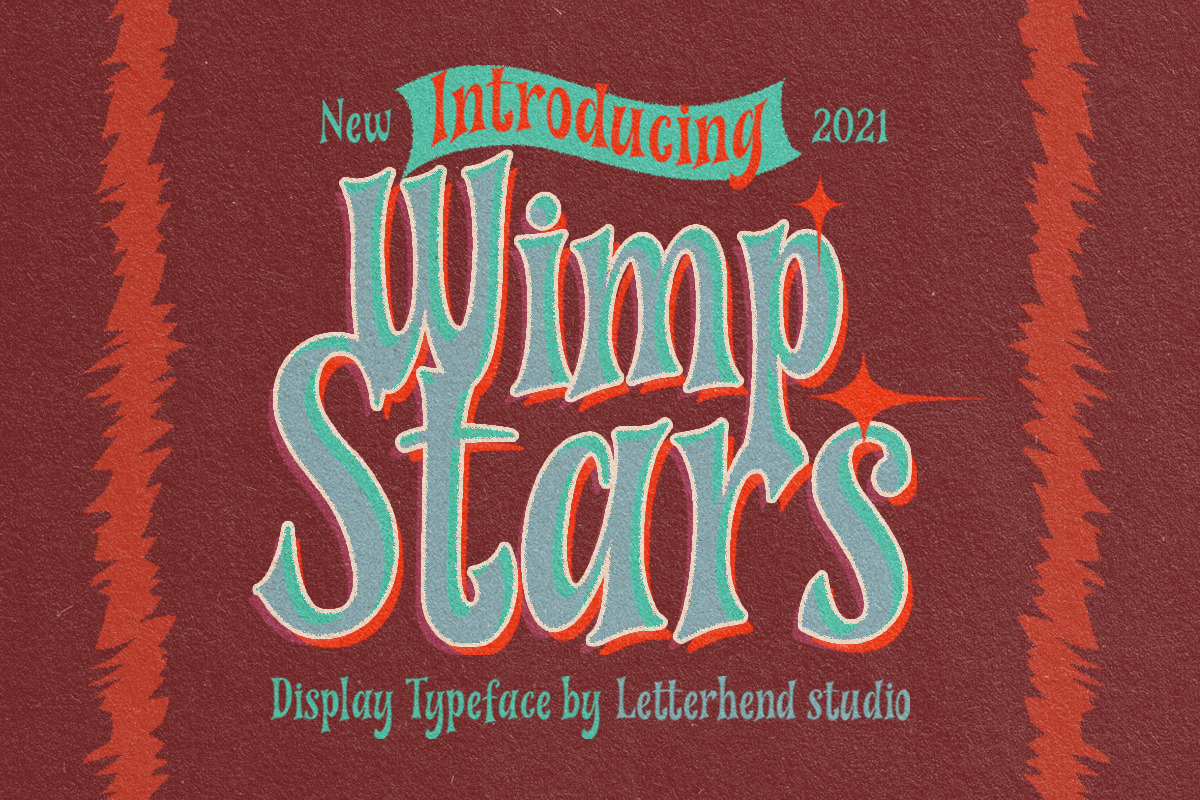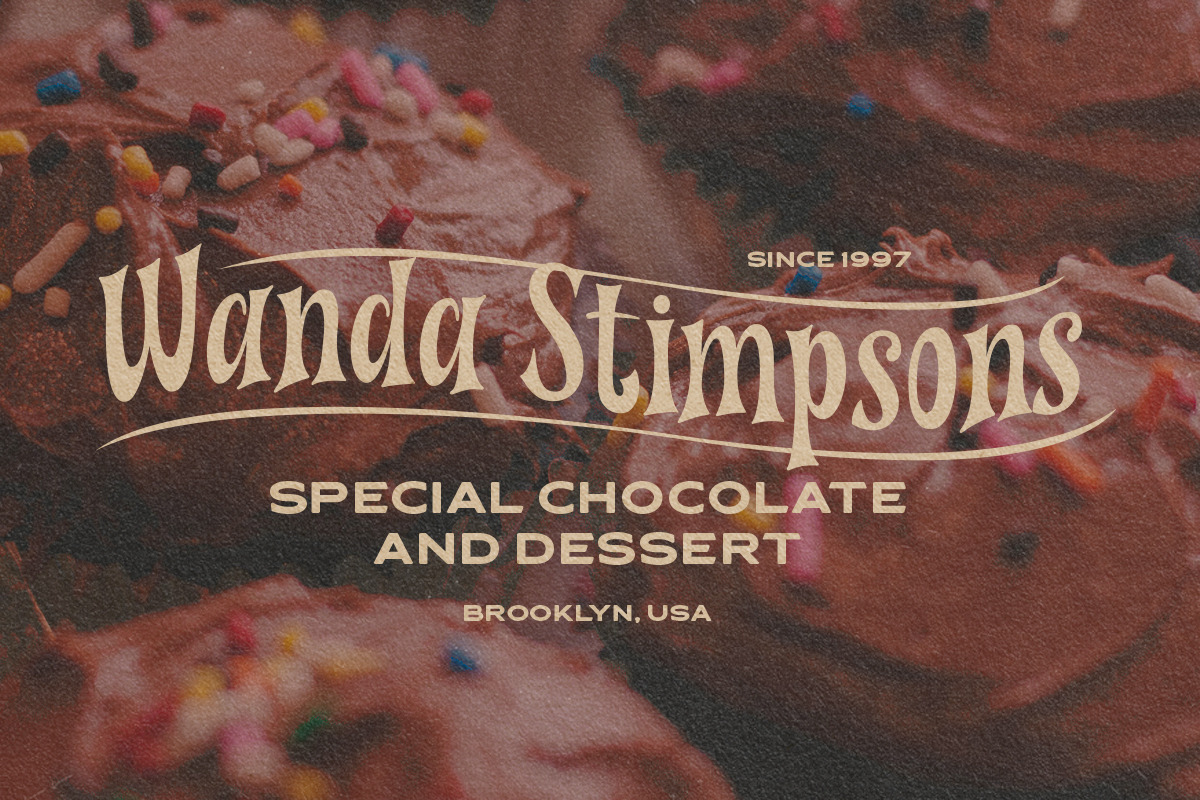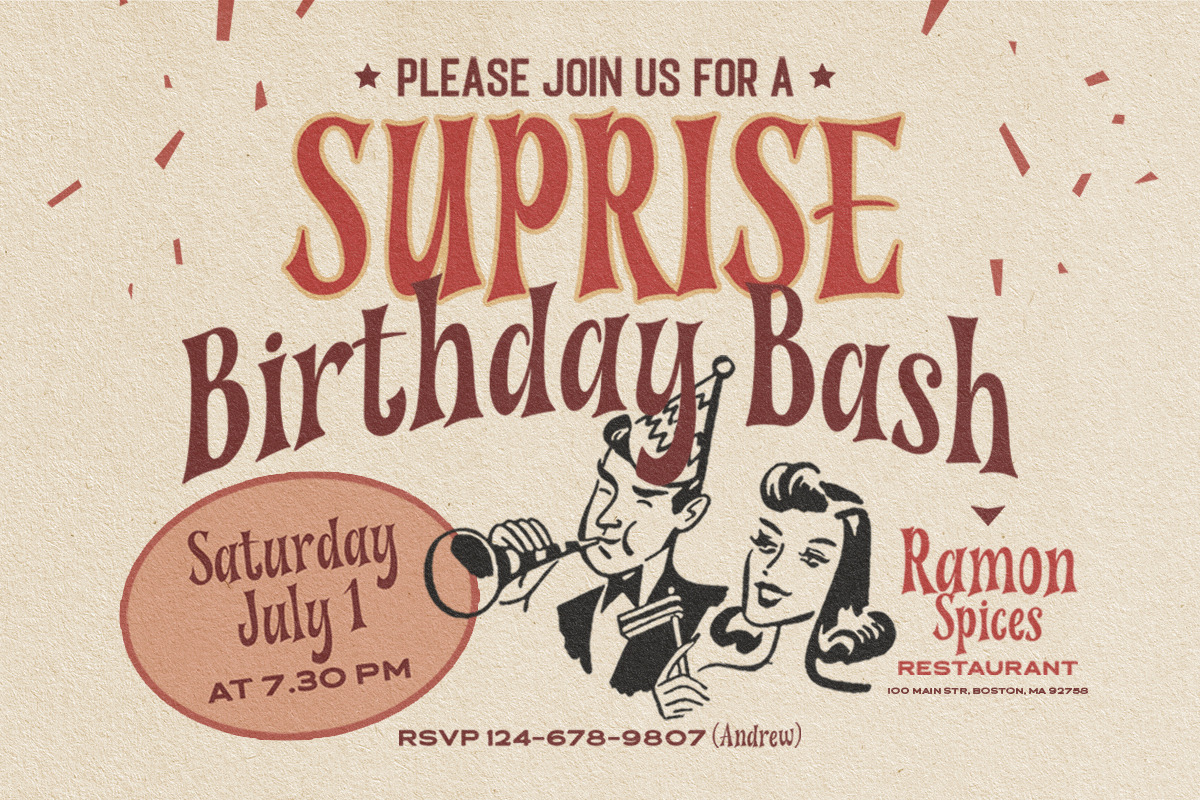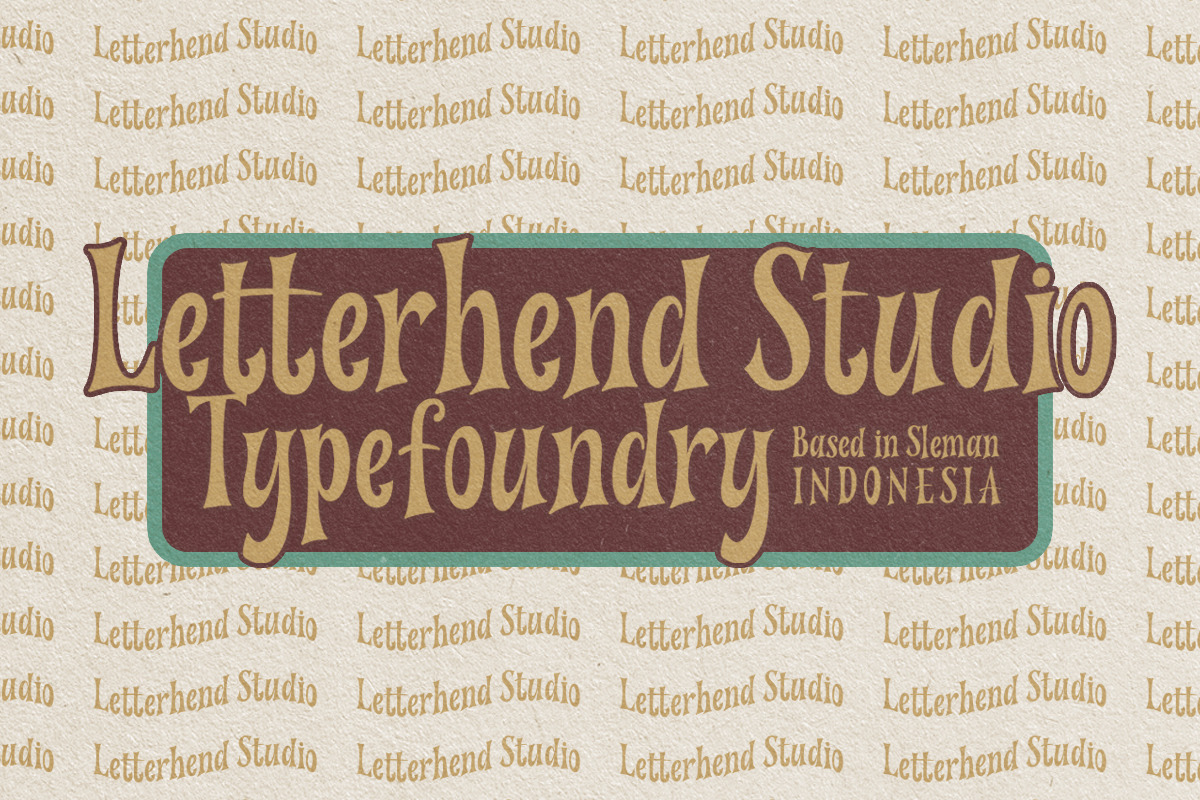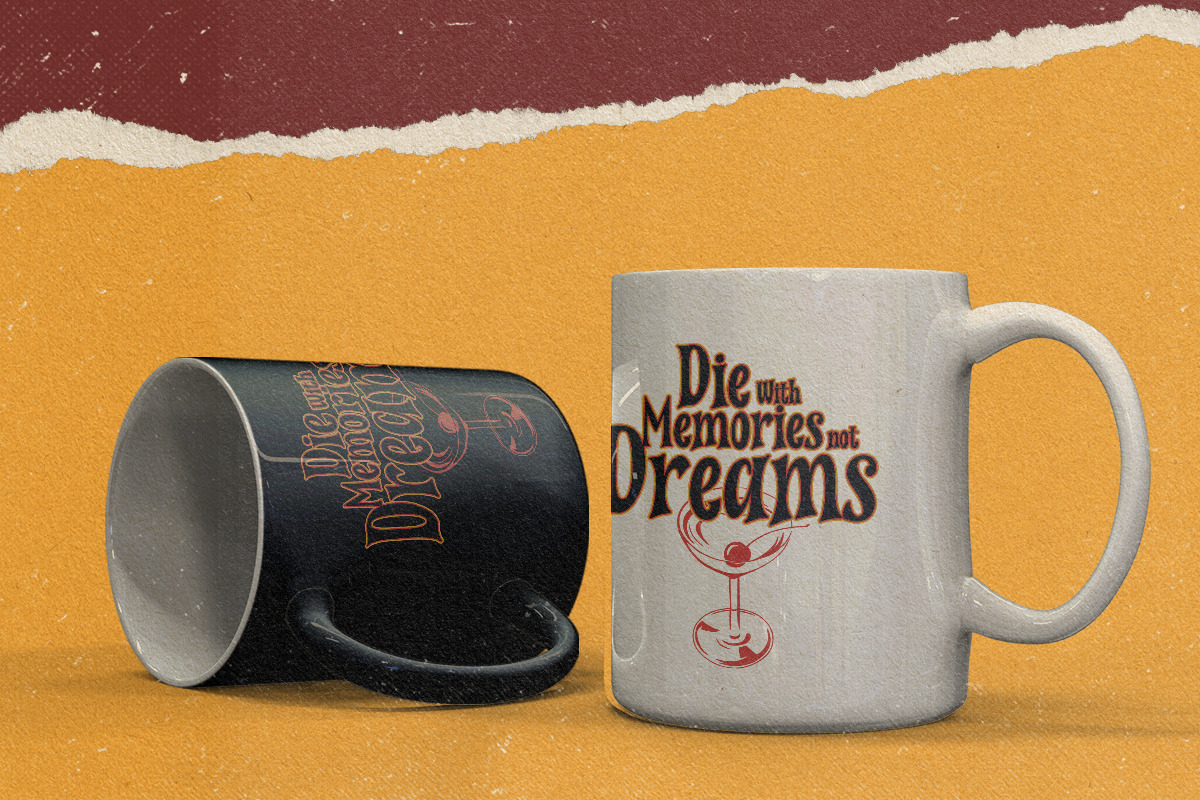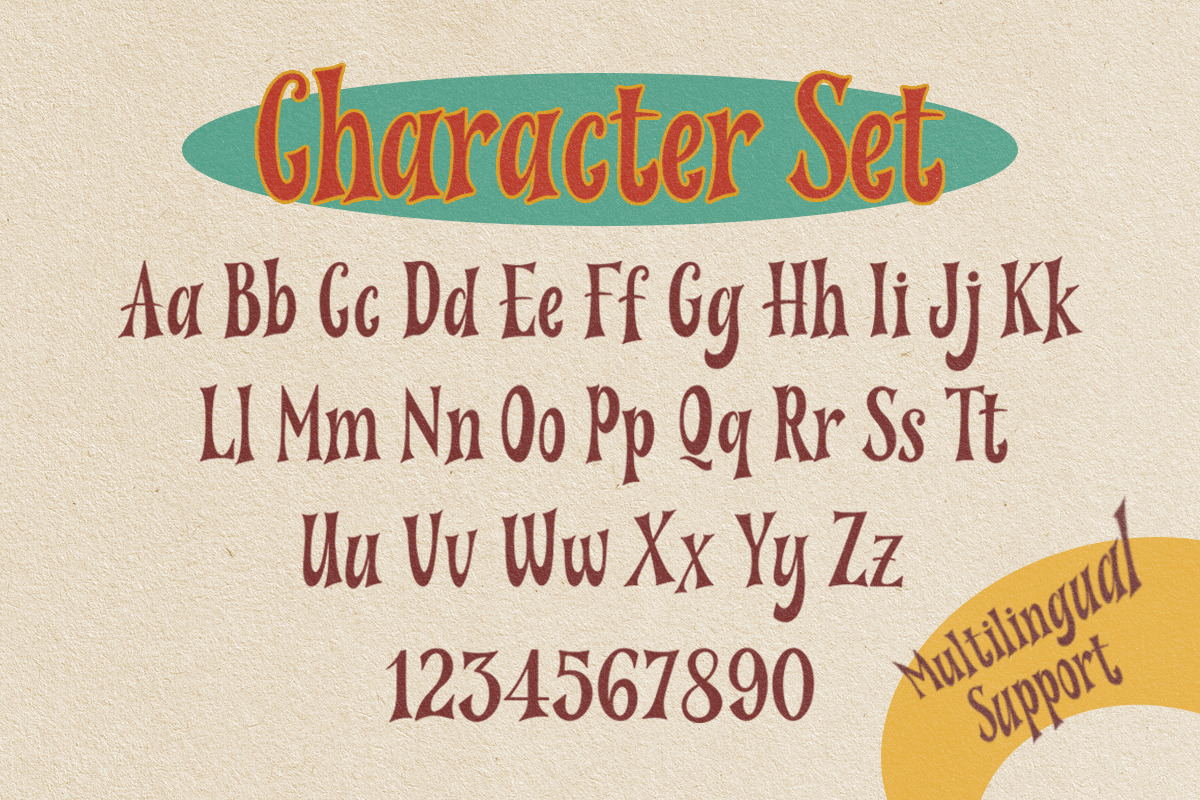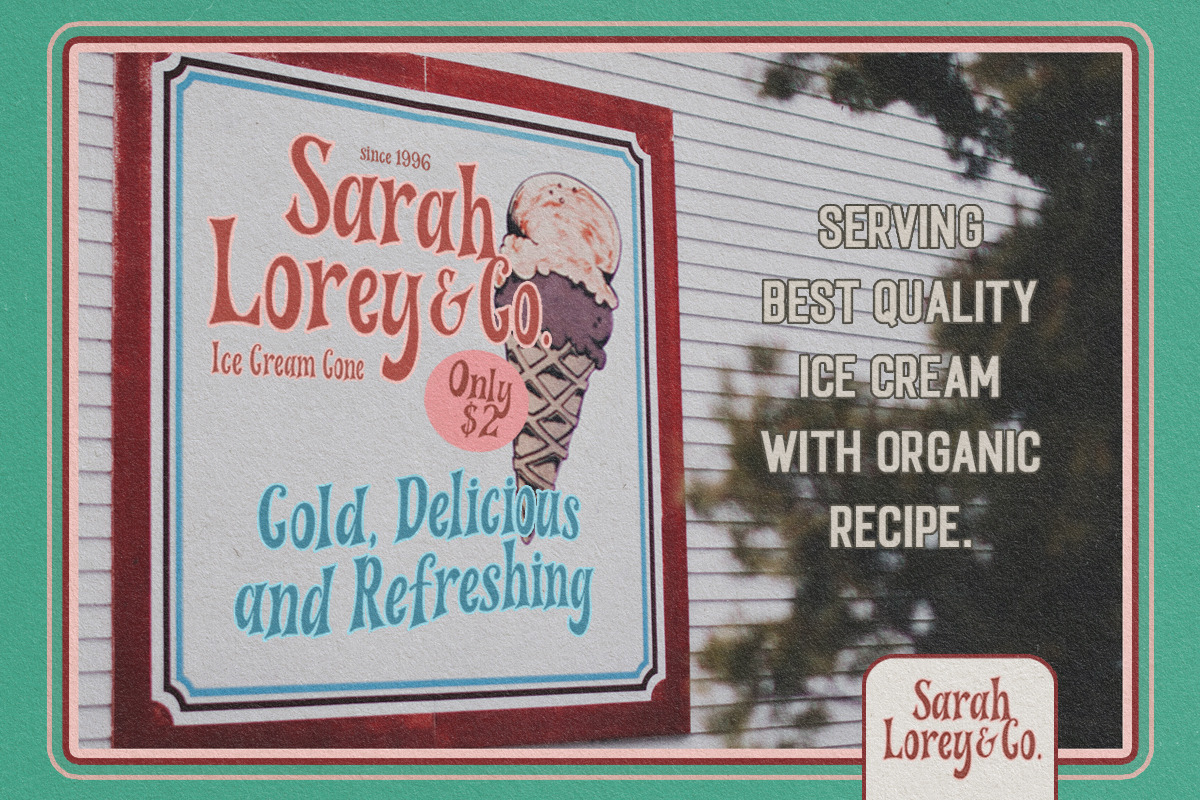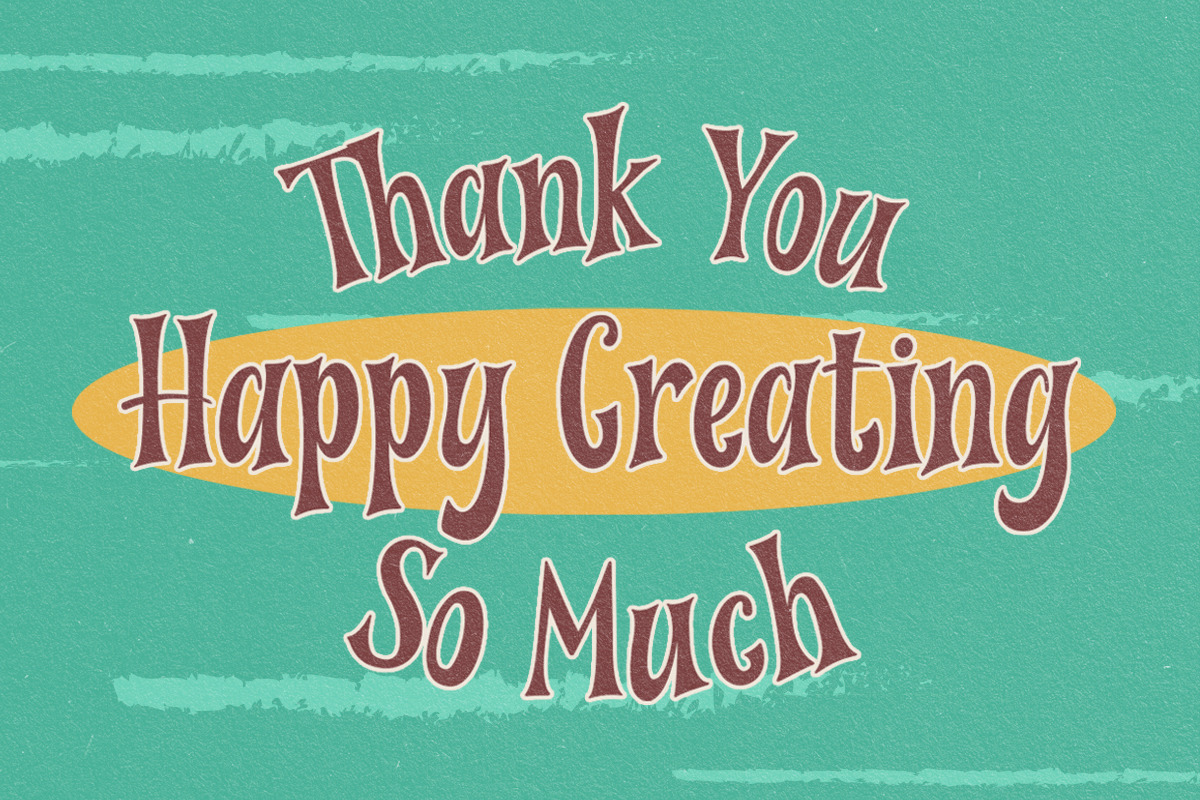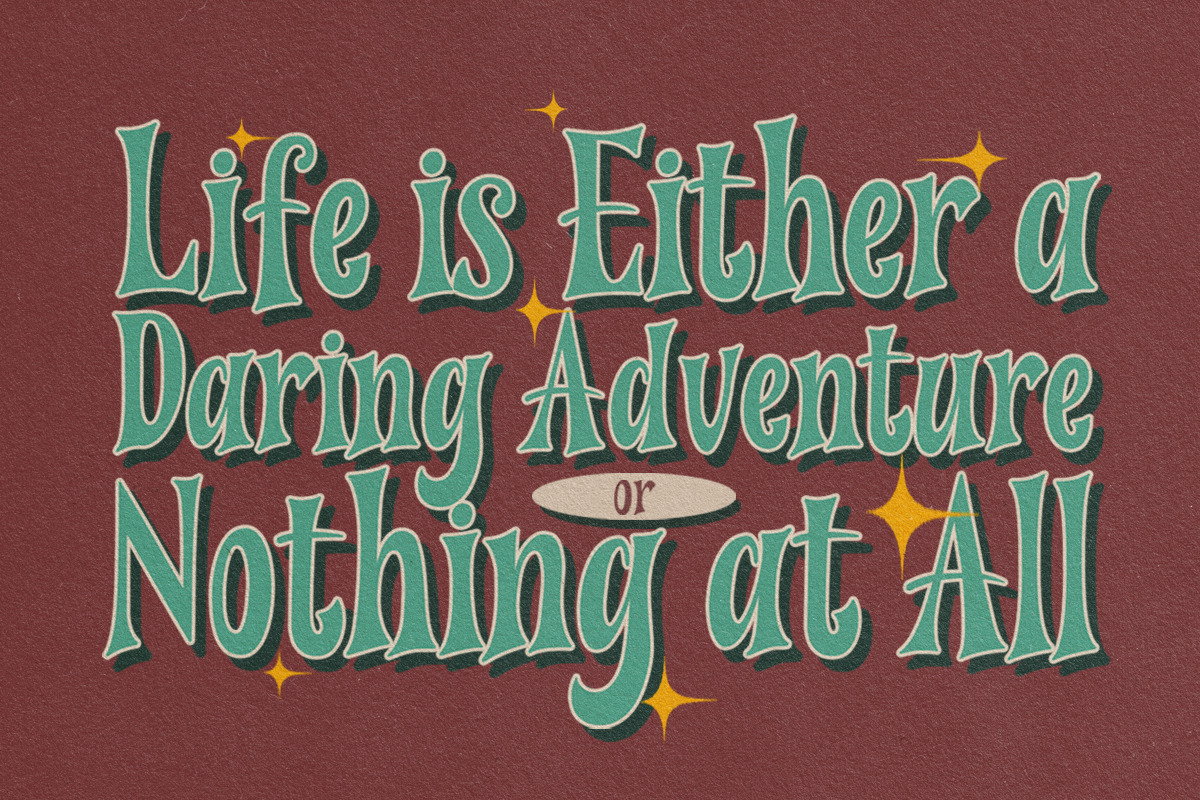
Wimp Stars - Display Typeface
Introducing, Wimp Stars - A nostalgic display typeface. The sharp edges make this font looks great and standout for tittle, headline, logo, etc especially for old and retro style theme. Perfectly to be applied to the other various formal forms such as invitations, labels, logos, magazines, books, greeting / wedding cards, packaging, fashion, make up, stationery, novels, labels or any type of advertising purpose.